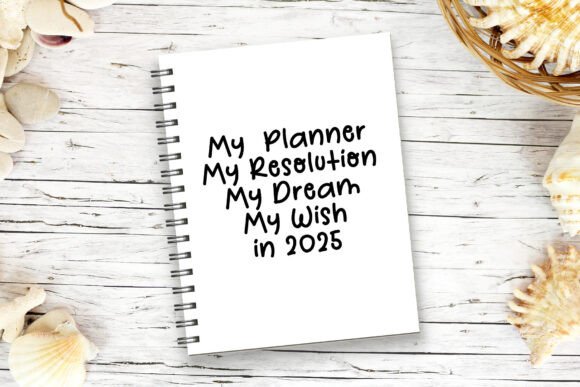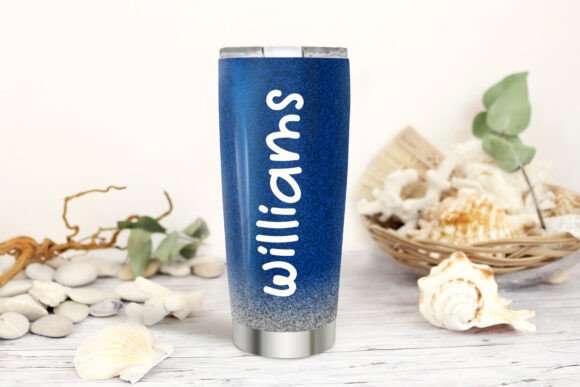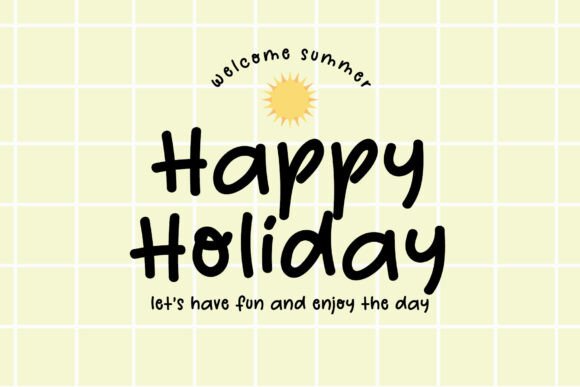
Beach Birthday Font
Beach Birthday is simple and natural handwritten font that represents fun, adore, and cuteness. Its natural and unique style makes it incredibly fitting to a large pool of designs. The only limit is your imagination!